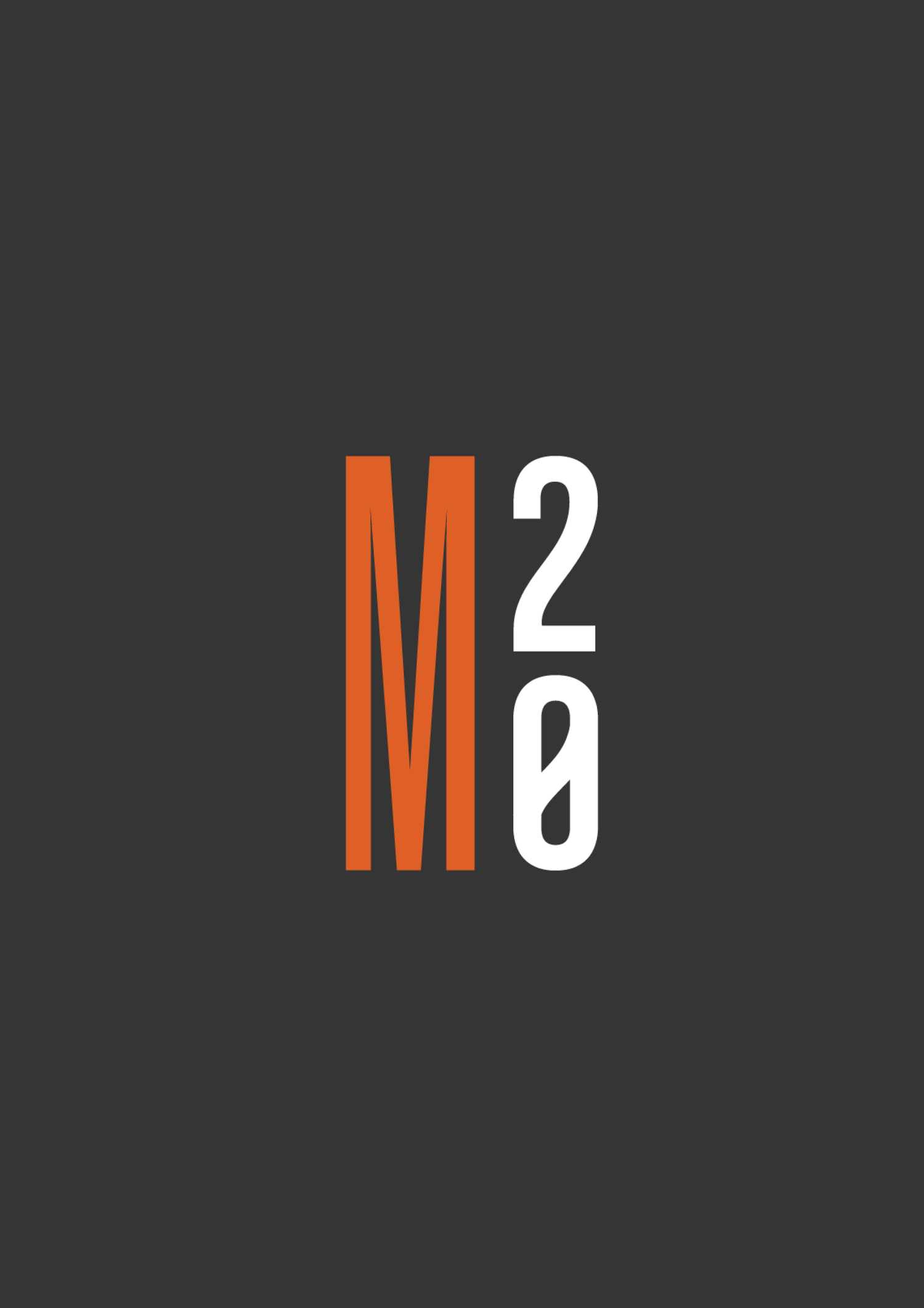
Logo for Mission20 in large, bold, orange and white letters.
Mission20
Mission20, founded by Patrick McKeon, offers Life & Career Strategies for High-Performing Leaders.
Mission20 represents the personal mission to become aware of who you really are (outside of “what you do”), to align your life and career with that identity in mind, and to take action to in order to live a life of purpose, joy and impact.
We were tasked with designing a “masculine” brand that attracted financial professionals and met them where they are while also inspiring them to move towards more fulfillment.
A black and dark gray background with a word tag reading "Mission20" in orange and white letters, tilted to the right.
Close-up of a person's hand wearing a watch and holding a pen, writing on paper at a wooden table, with another person in the background gesturing with their hands.
Dark gray background with stylized text 'M20' in orange and white for Mission20.
A poster on a concrete wall encourages creating a personal mission with the words 'Create Your Personal Mission. Start Living It.' against a background of a mountain landscape and a small flame icon.
A business card for 'Mission20', featuring the title in bold black and orange letters on a dark background, with a subtitle about life and career strategies for high-performing leaders, and contact information at the bottom.
Man sitting on front steps in front of white house, smiling, wearing a light blue checked shirt and navy pants.
Black mug with white and pink text saying "Powerful thoughts lead powerful action" on a white marble surface, surrounded by small bowls of coffee beans and a green spoon with coffee beans and a copper measuring spoon.
Orange a brochure with the text "Mission20" and a matching envelope on an orange background.
Two metal pin badges, one with the M20 logo and the other with a fire flame icon, and two round metal containers with pins on the back inside.
Three notebooks stacked on a white table, the top one with an orange cover that reads 'Powerful Thoughts Lead Powerful Action.'
A young man holding a white tote bag with a logo that includes a flame icon and the words "Mission20 | Life of Impact" against an orange background.
Back of a man wearing a black T-shirt with the text 'MISSI 206 N' printed in orange and white.
Logo with a flame icon in the center, surrounded by the text 'Mission Twenty Life of Impact' on a dark background.
Webpage homepage for Missi6N, featuring a mountain landscape with snow-covered peaks, text about leadership and strategies, and an orange "Learn More" button.
Color palette with four color labels: Black, Charcoal, Slate, Flame.